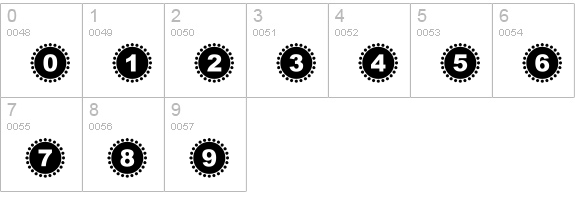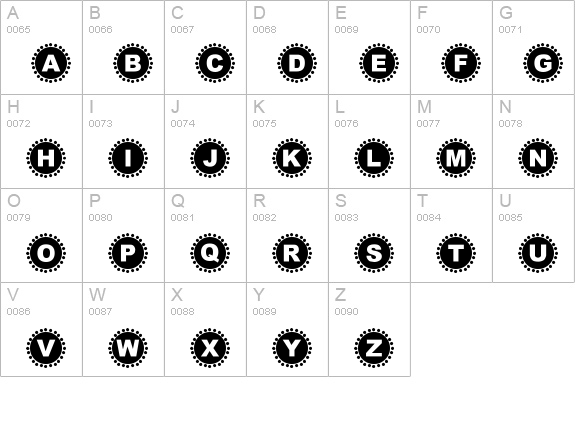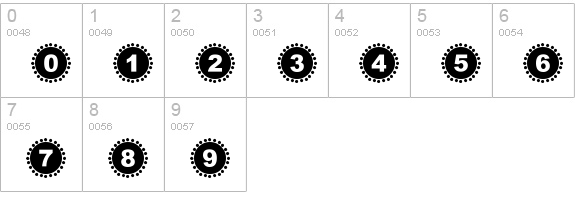
Introducing 4YEO IN font, a modern and stylish typeface designed to captivate and inspire. This versatile font exudes elegance and sophistication, making it perfect for a wide range of design projects. With its clean lines and unique character shapes, 4YEO IN font is sure to make a lasting impression. What sets 4YEO IN font apart is that it is not only visually appealing but also completely free to use. Yes, you read that right – this stunning font is freely available to download at FontsMarket.com. Whether you're working on a personal project or a professional design, 4YEO IN font is the perfect choice to elevate your work to the next level. Embrace the beauty and creativity of 4YEO IN font and let your imagination run wild. Download it today and start creating stunning designs that will leave a lasting impact.